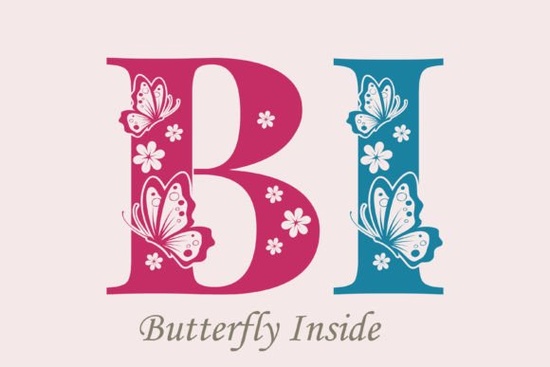
If you've been searching for a decorative typeface that feels handcrafted and full of personality, the Butterfly Inside Font is worth a closer look. It's an elegant serif-inspired font with delicate ornamental details that give every letter a romantic, artistic quality. Whether you're designing wedding invitations, building a brand mood board, or creating printable wall art, this font brings warmth and charm without trying too hard.
Let's walk through what makes this typeface stand out, who it's best suited for, and how you can put it to work in your next project.
What Does Butterfly Inside Look Like?
This is a decorative display font with a distinctly vintage-meets-romantic aesthetic. Each letterform carries subtle flourishes and ornamental curves that feel hand-drawn rather than digitally sterile. The overall style sits somewhere between a classic serif and a decorative script readable enough for short headlines but expressive enough to make a visual statement.
The character set includes uppercase and lowercase letters, numbers, and punctuation. If you're familiar with Butterfly Inside on Creative Fabrica, you'll notice the font pairs beautifully with clean sans-serifs for contrast.
It works particularly well at larger sizes where those ornamental details can really show. At small body text sizes, the flourishes may lose some definition so think of it as a headline and display font rather than a paragraph workhorse.
What Can You Use This Font For?
The short answer: anything that needs a touch of elegance and personality. Here are some of the most popular uses among designers and crafters:
- Wedding invitations and save-the-dates The romantic, ornamental style fits naturally with bridal stationery.
- Greeting cards Birthday cards, thank-you notes, and holiday designs all benefit from a font with this much character.
- Social media graphics Instagram quotes, Pinterest pins, and story templates look polished with a decorative display typeface.
- Print-on-demand products Think mugs, tote bags, journals, and wall art where a single phrase becomes the design.
- Branding and logos Small businesses in the beauty, floral, or lifestyle space can use this font for a soft, approachable identity.
- Scrapbooking and digital planners The ornamental details add visual interest to memory-keeping layouts.
For designers working on romantic-themed projects, you might also want to explore other wedding and romantic decorative fonts to build a cohesive type pairing system.
How Does It Compare to Other Decorative Fonts?
There's no shortage of ornamental fonts available, so what sets Butterfly Inside apart? A few things stand out:
- Authenticity The letterforms don't feel like a template. They have an organic, slightly imperfect quality that reads as genuine.
- Balance Some decorative fonts go overboard with swashes and curls. This one stays restrained enough to remain legible.
- Versatility It works across different project types, from formal wedding suites to casual social media content.
That said, it's not the right fit for every project. If you need a font for long-form body copy, a clean sans-serif or traditional serif will serve you better. This typeface is at its best when it's the star of a short headline or title.
Tips for Pairing Butterfly Inside with Other Fonts
Good font pairing is about contrast and balance. Here are a few combinations that work well:
- Butterfly Inside + a clean sans-serif (like Montserrat or Poppins) The simplicity of the sans-serif lets the decorative font shine.
- Butterfly Inside + a simple script For an all-romantic look, pair it with a thin, flowing script font for secondary text.
- Butterfly Inside + a light-weight serif This creates an elegant, editorial feel that works well for stationery design.
A good rule of thumb: use Butterfly Inside for one or two key text elements per design. If every font on your canvas is decorative, the layout will feel cluttered.
Is This Font Right for Your Project?
Ask yourself these questions:
- Does my design need a romantic or vintage feel?
- Am I working with short text like a headline, name, or phrase?
- Do I want a font that feels handcrafted and warm, not corporate or modern?
- Will the text be displayed at a larger size where ornamental details are visible?